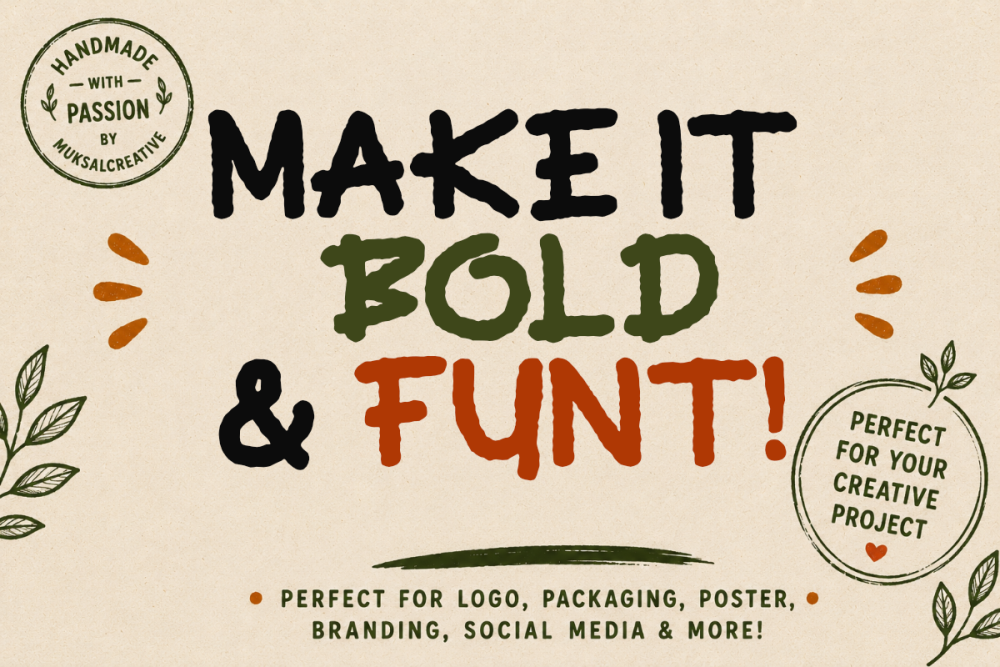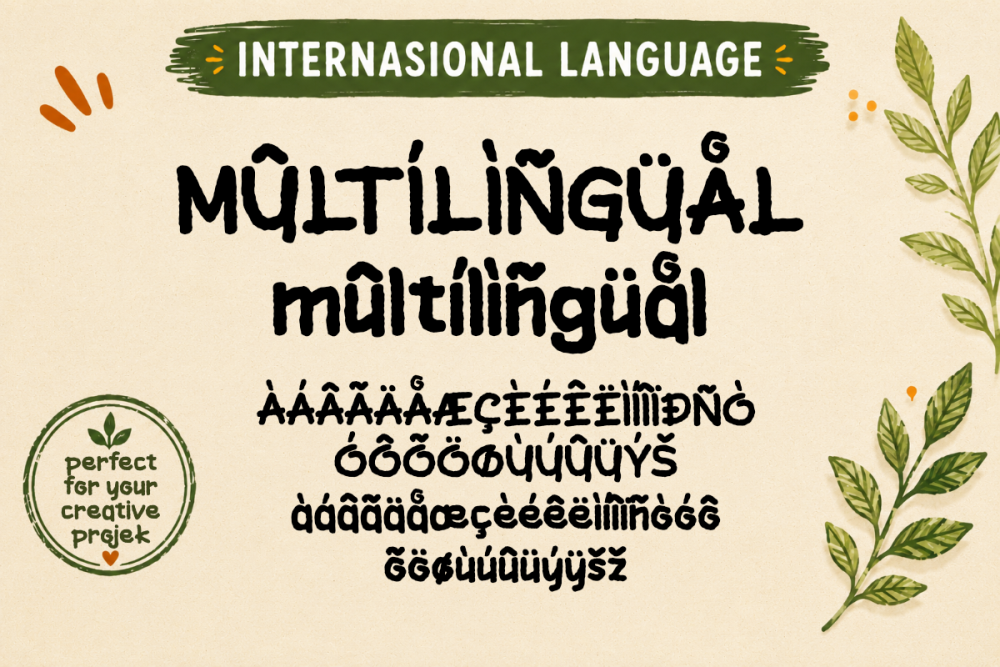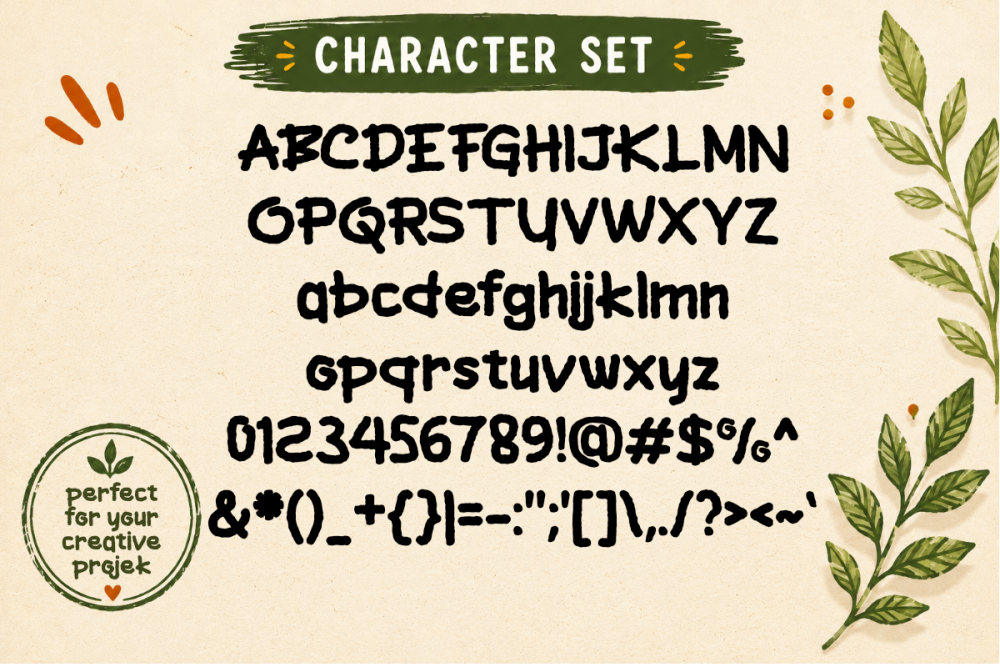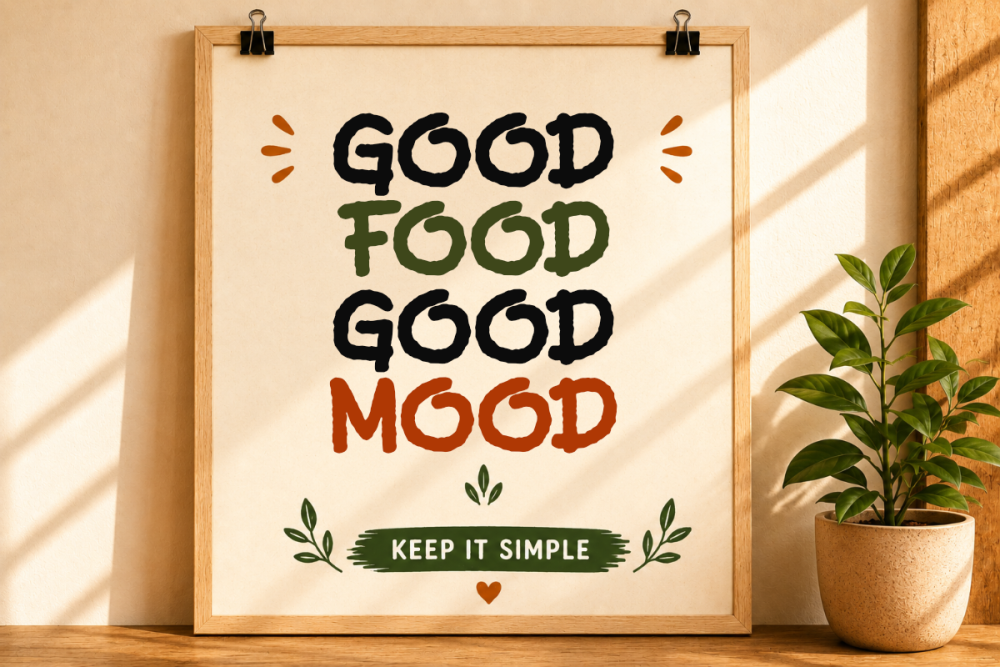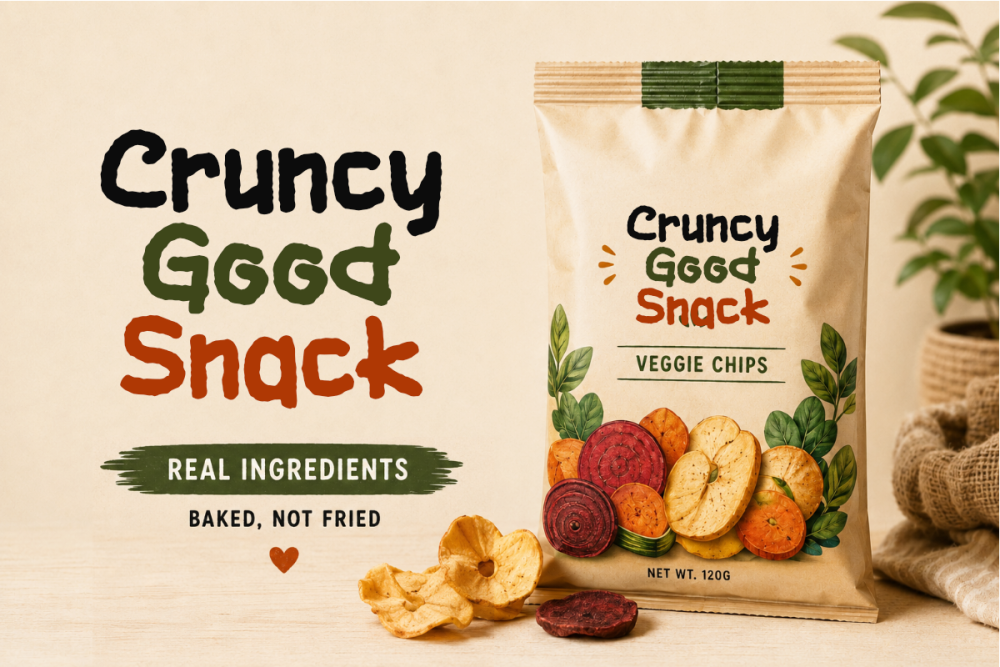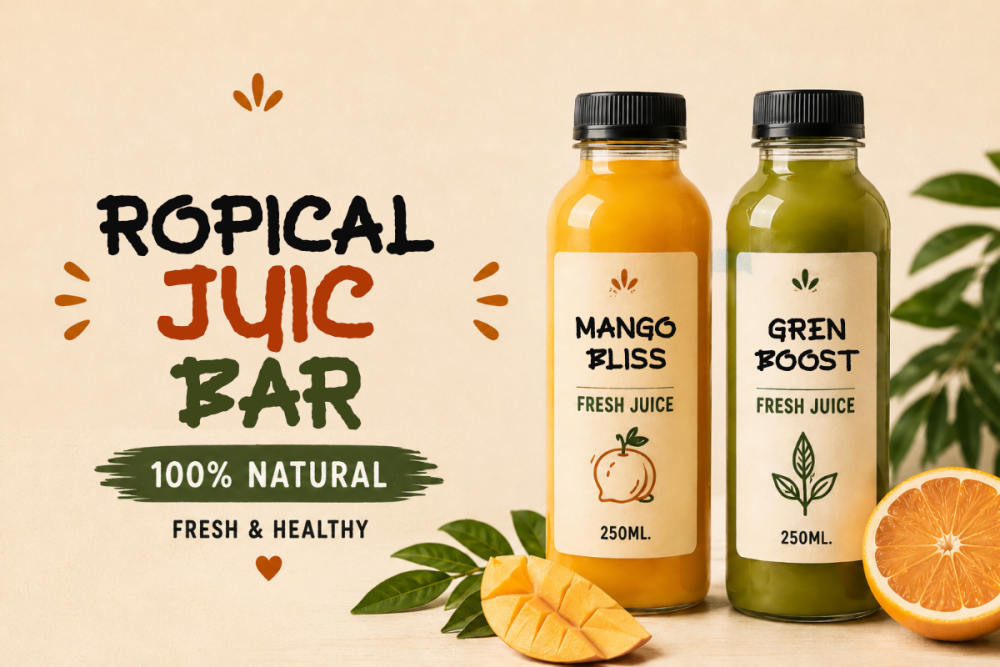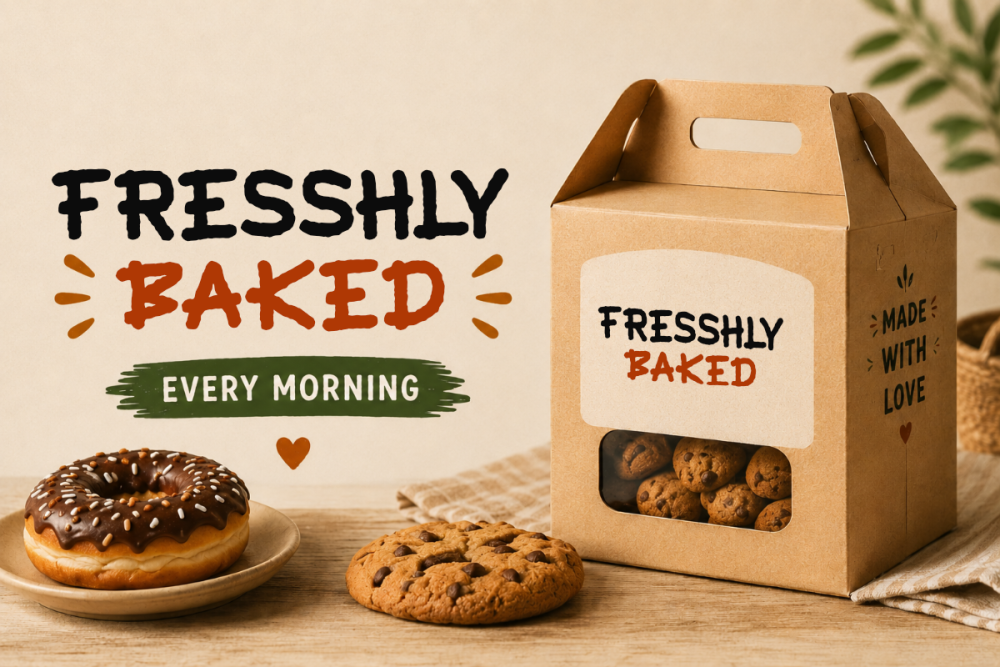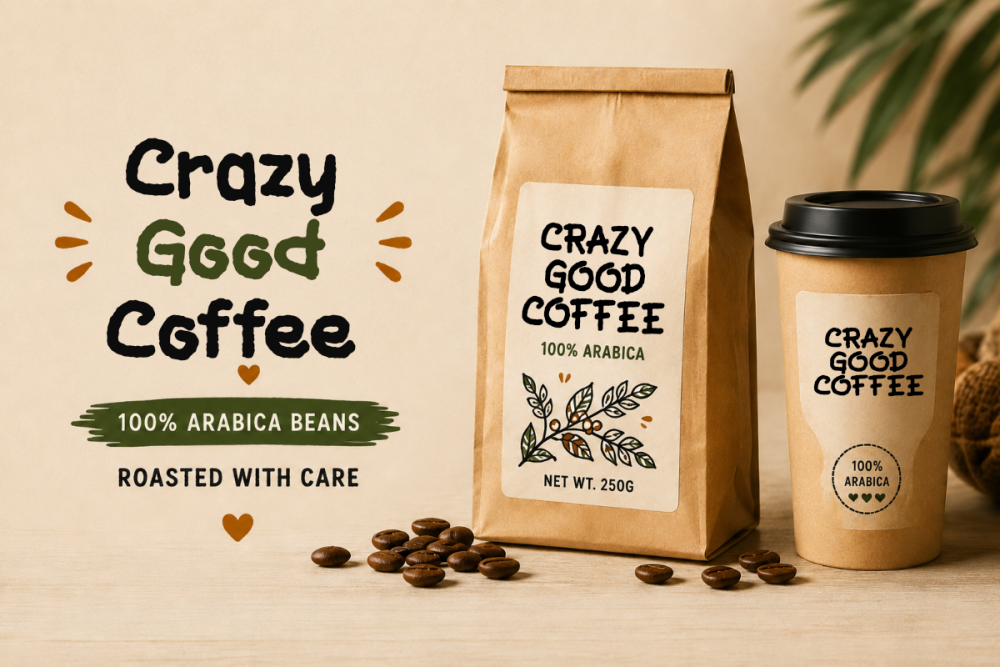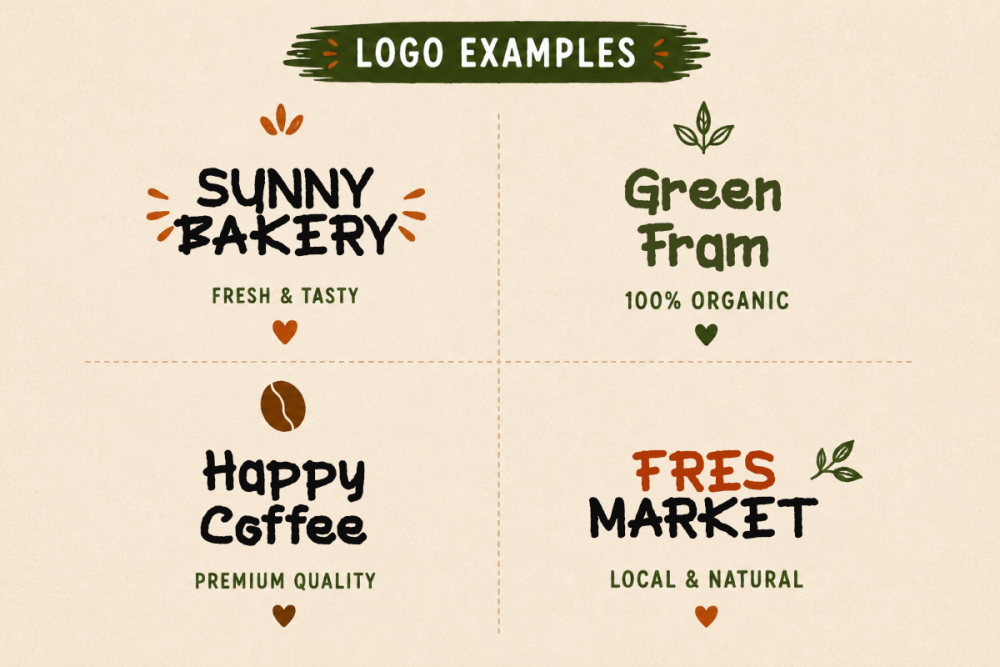
Kolumba is a bold handmade display font crafted to bring warmth, personality, and natural charm to your creative projects. Featuring organic letterforms, rough textures, and playful proportions, Kolumba delivers an authentic handcrafted feel while remaining highly readable and versatile.
Inspired by artisan packaging, organic branding, farmers markets, coffee shops, bakeries, and modern handmade products, this font is perfect for creating eye-catching headlines, logos, labels, posters, packaging, and social media graphics.
Its expressive character and imperfect details add a friendly and approachable touch, making every design feel unique, inviting, and full of personality.
- Uppercase Letters
- Lowercase Letters
- Numbers & Punctuation
- Multilingual Support
Perfect For
- Food Packaging
- Coffee Branding
- Bakery Labels
- Organic Products
- Farmers Market Branding
- Logo Design
- Posters & Headlines
- Social Media Graphics
- Product Packaging
- Craft & Handmade Brands
Font Features
- Bold Handmade Style
- Organic & Natural Look
- Rough Textured Details
- Friendly Character Shapes
- Highly Versatile Display Typeface